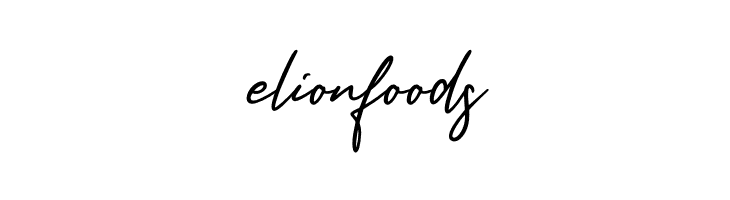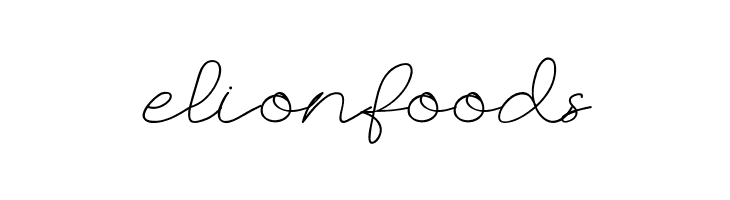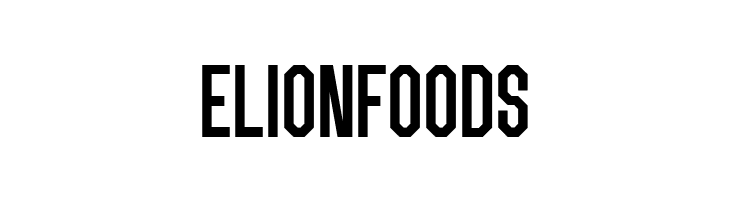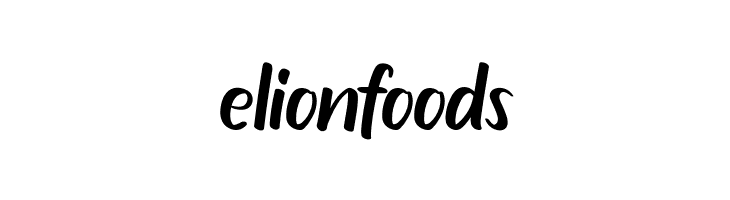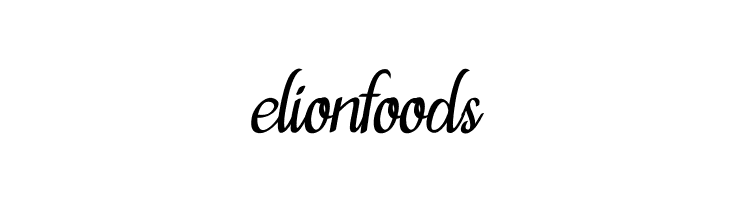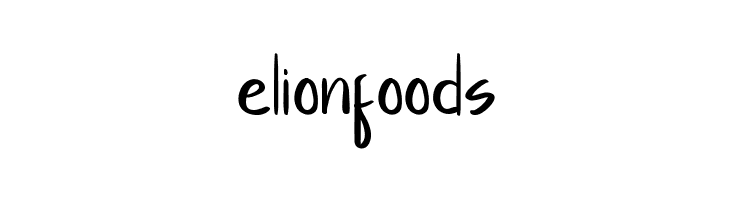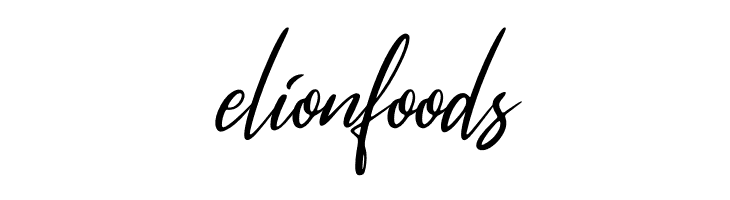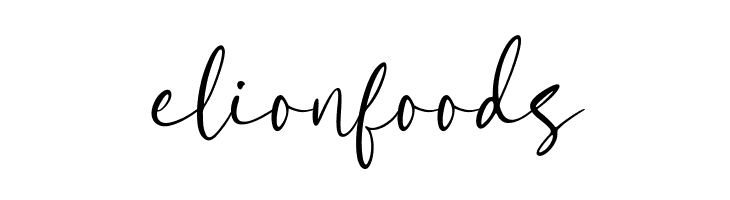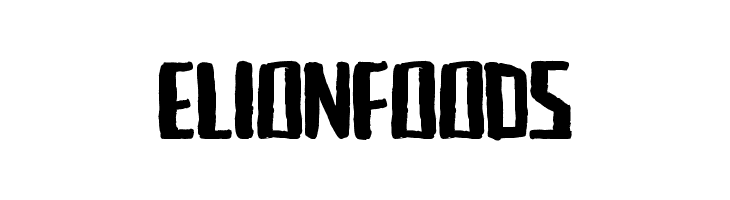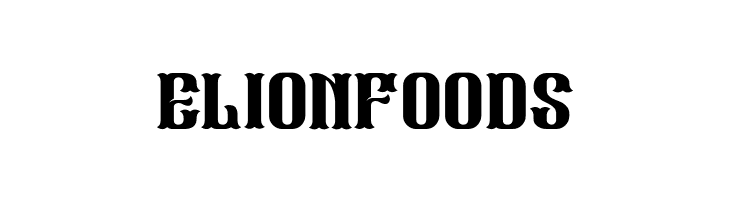
A cursive, handwritten font with fluid, connected letters and medium contrast.
A bold, rugged, hand-drawn font with a rebellious, edgy vibe.
A fluid and elegant cursive script font with a dynamic, handwritten style.
A flowing, cursive handwritten font with thin, elegant strokes.
A playful, handwritten script font with fluid connections and a casual vibe.
A playful handwritten font with dynamic and fluid letterforms.
A bold, geometric font with a modern and assertive style.
A lively, expressive handwritten font with dynamic strokes and a playful style.
An elegant, flowing script font with ornate uppercase and smooth lowercase letters.
A bold, decorative font with intricate details and a strong presence.